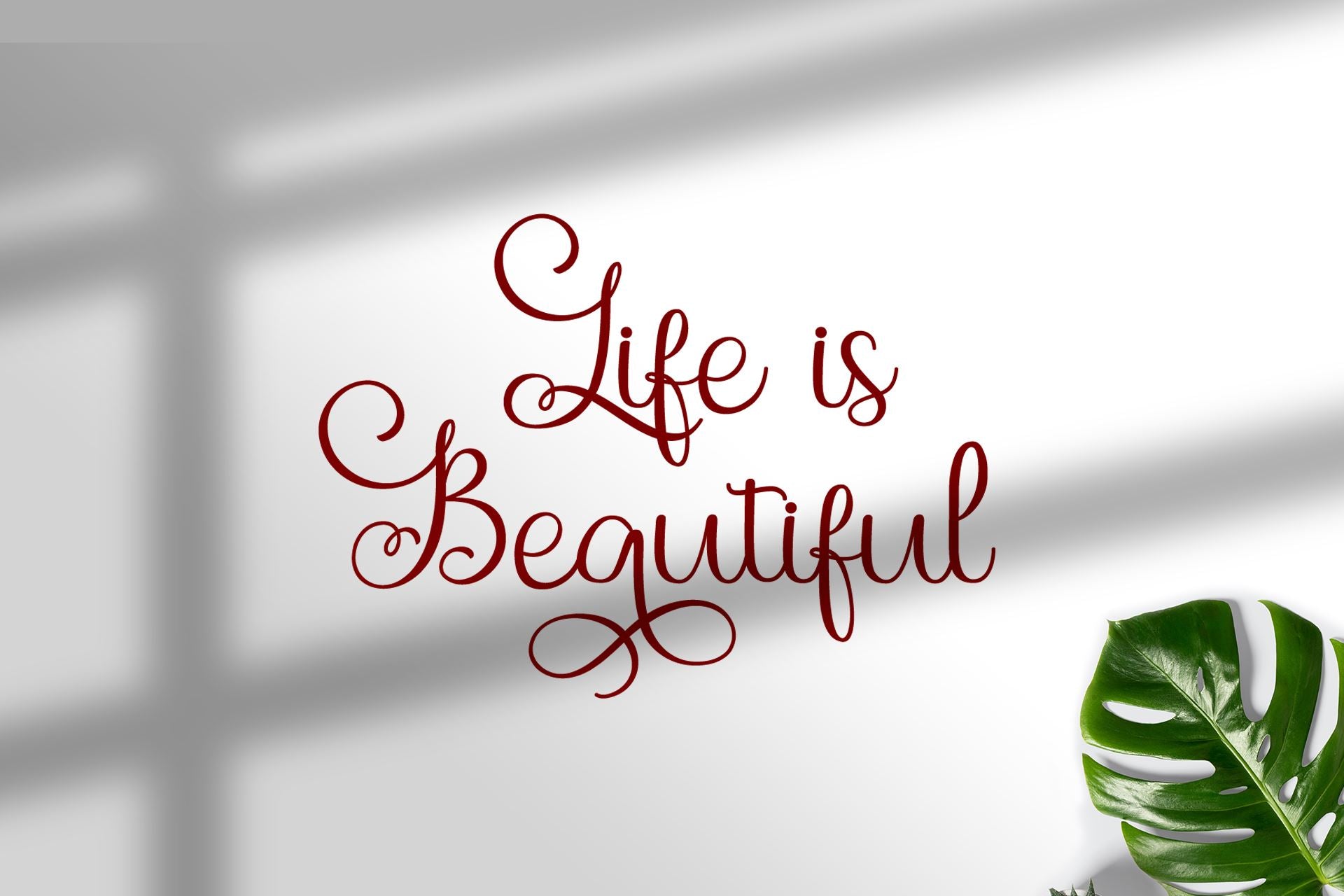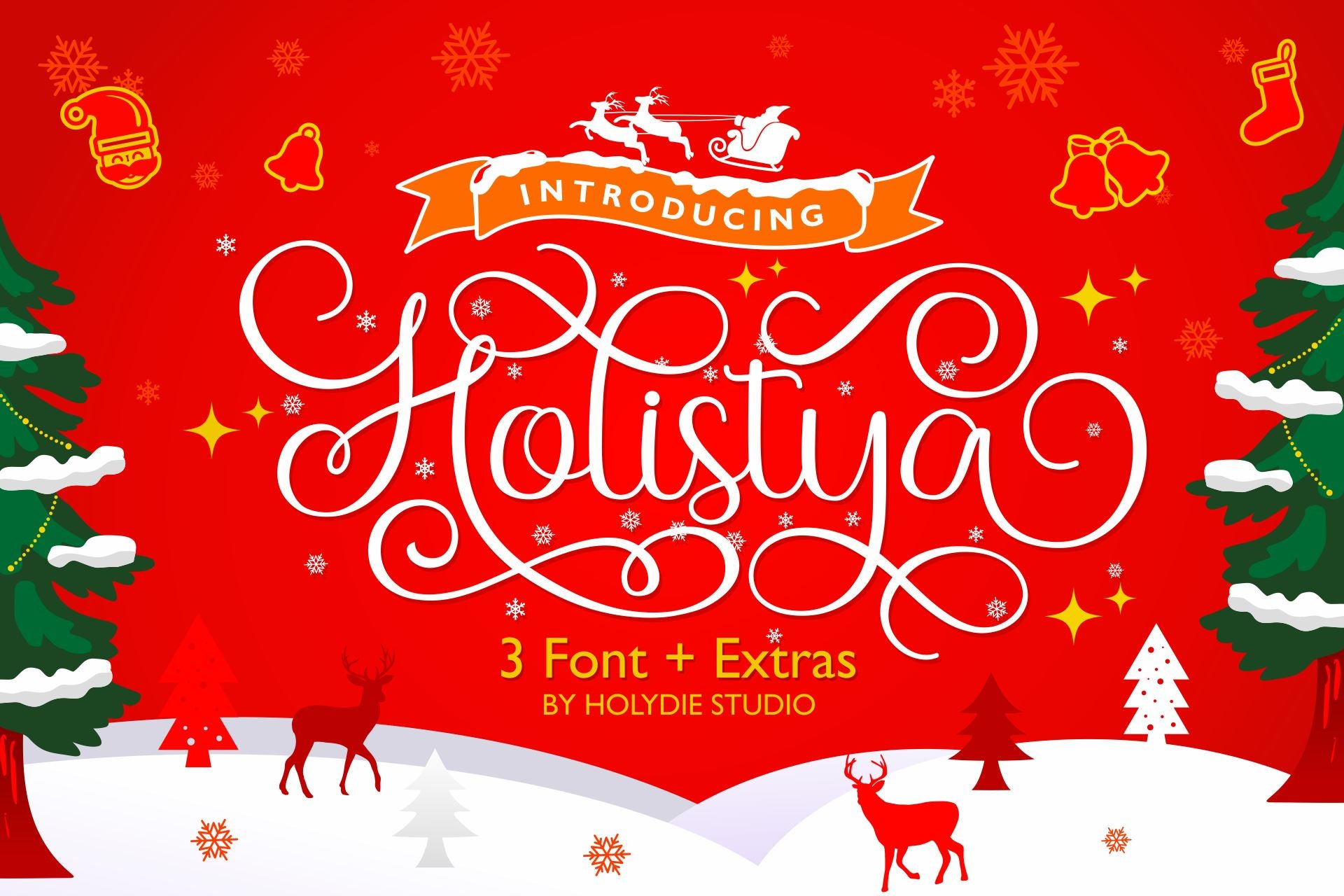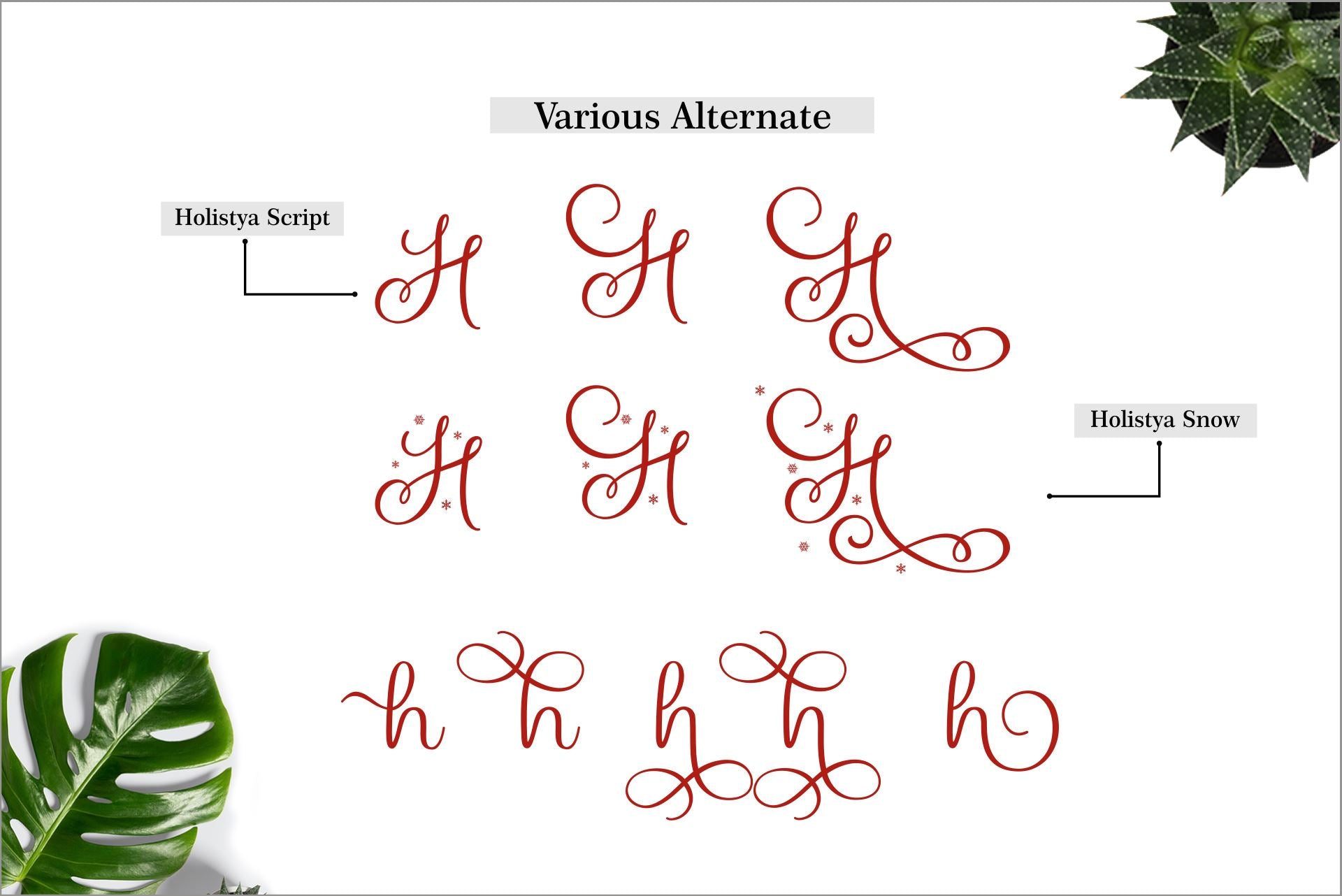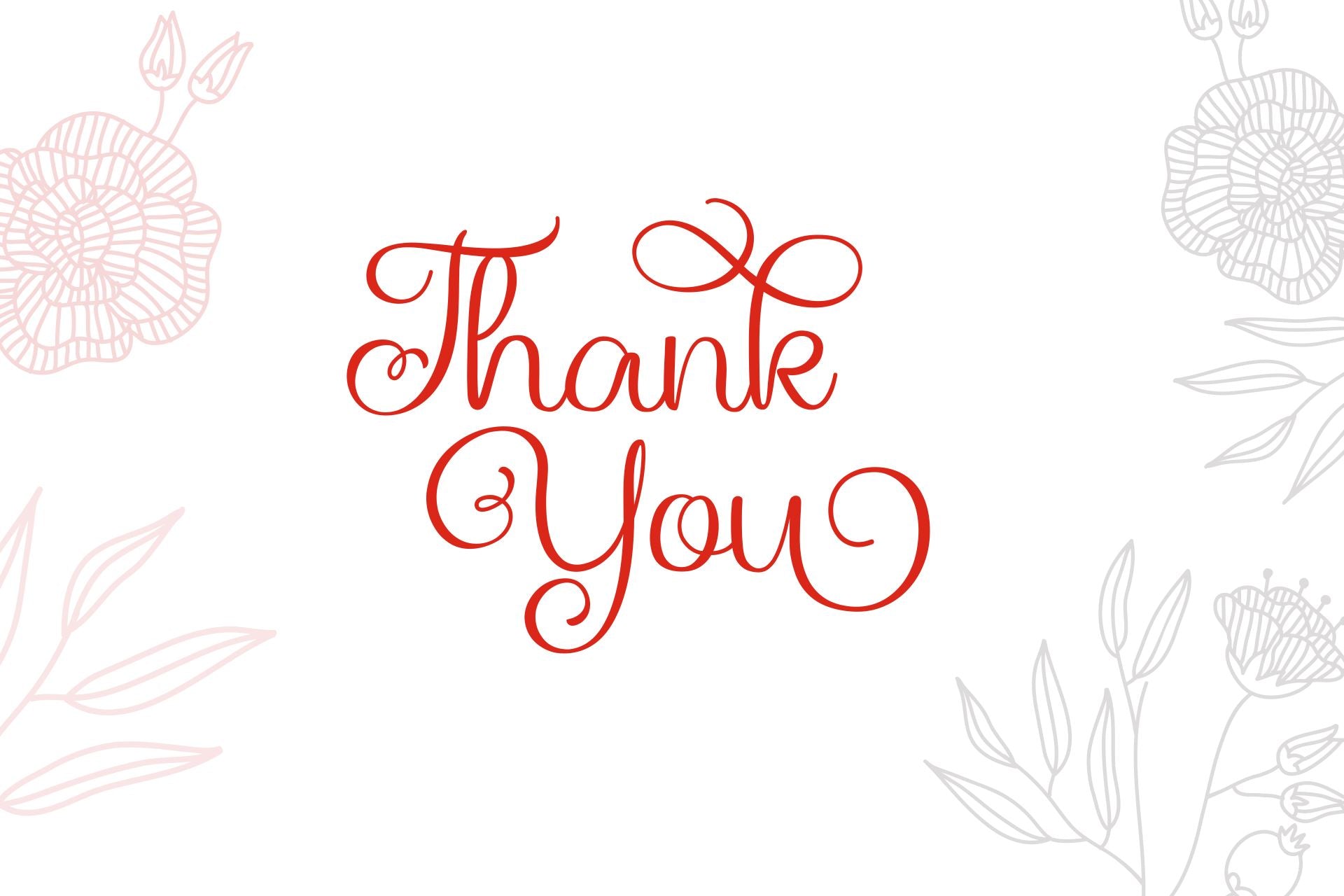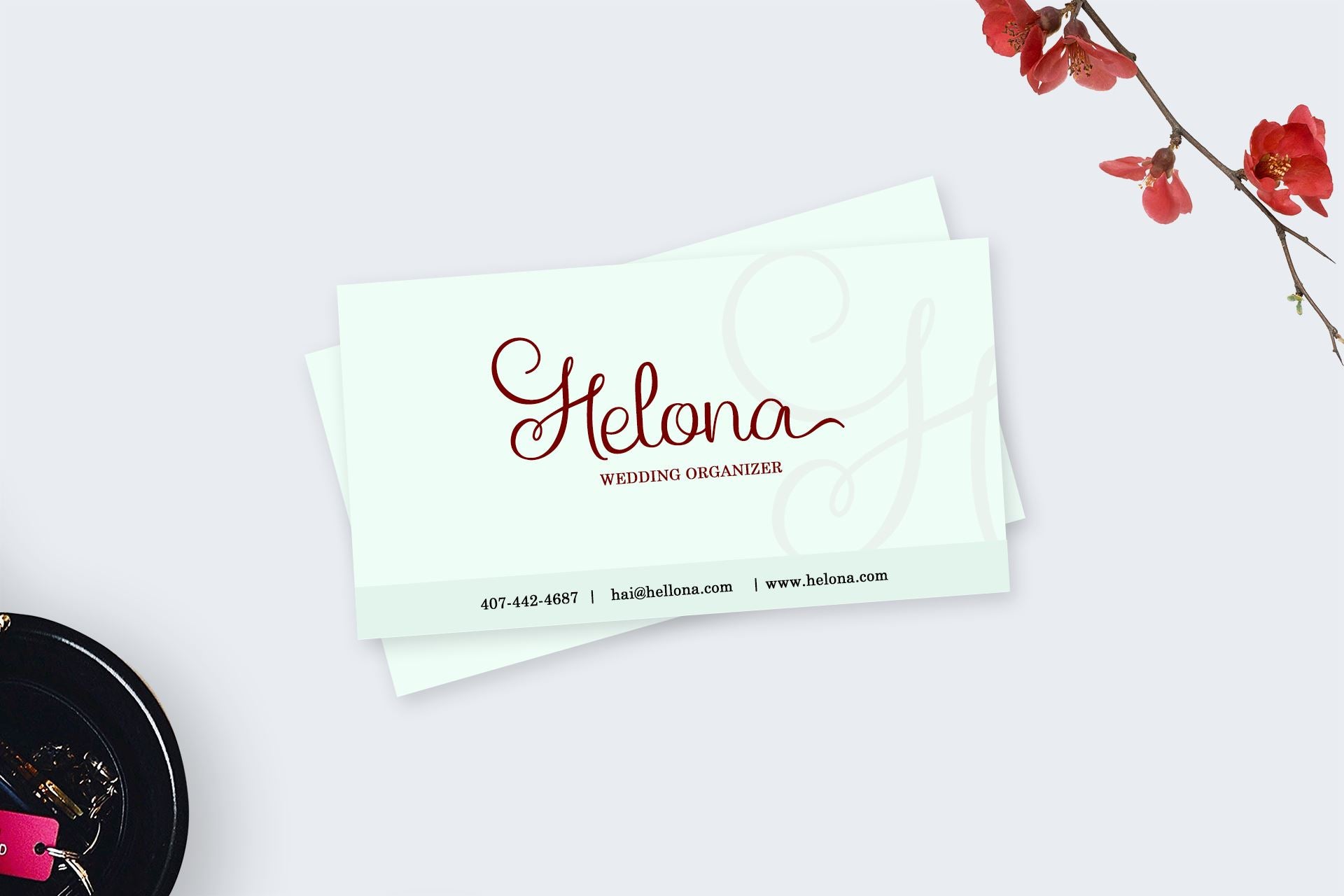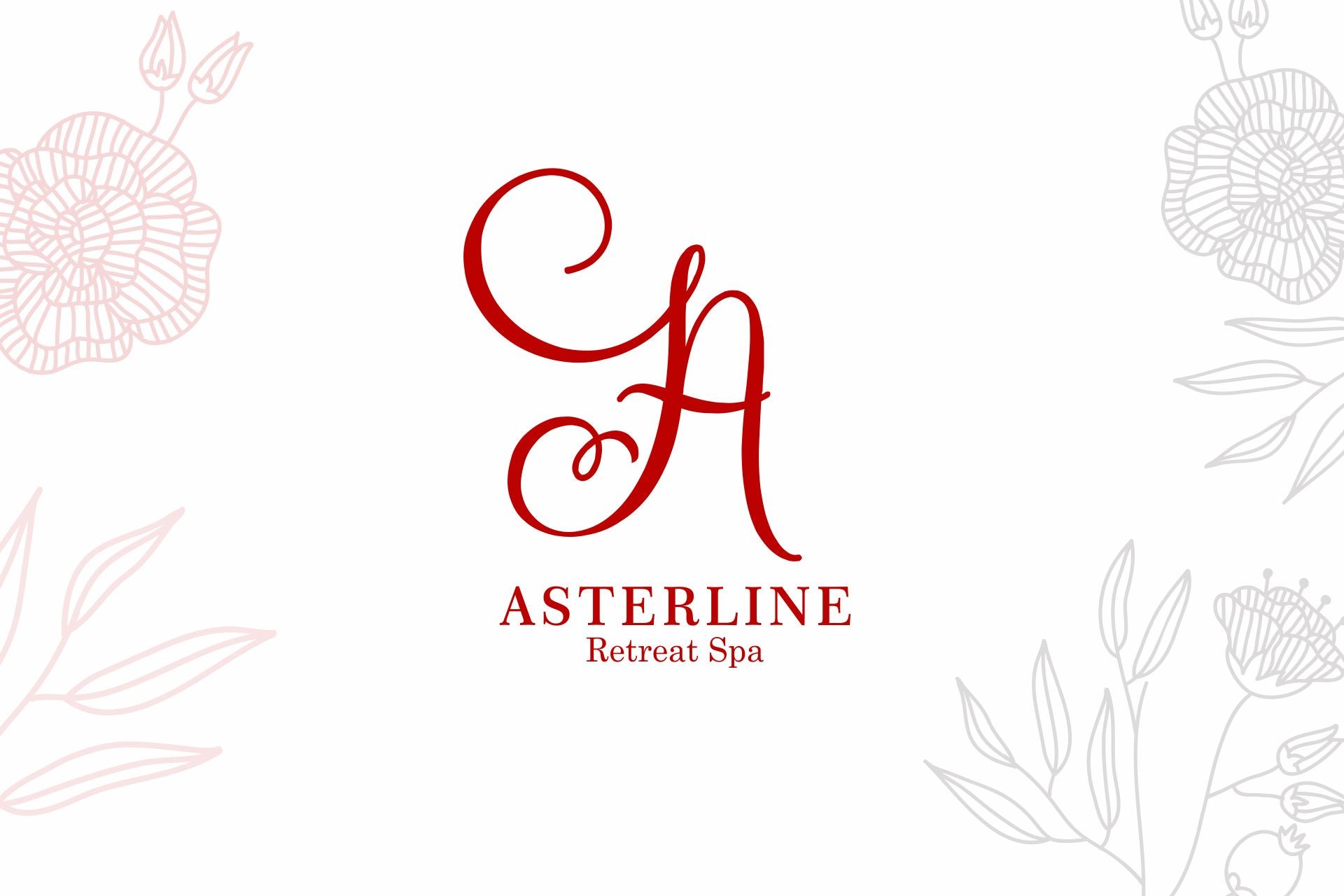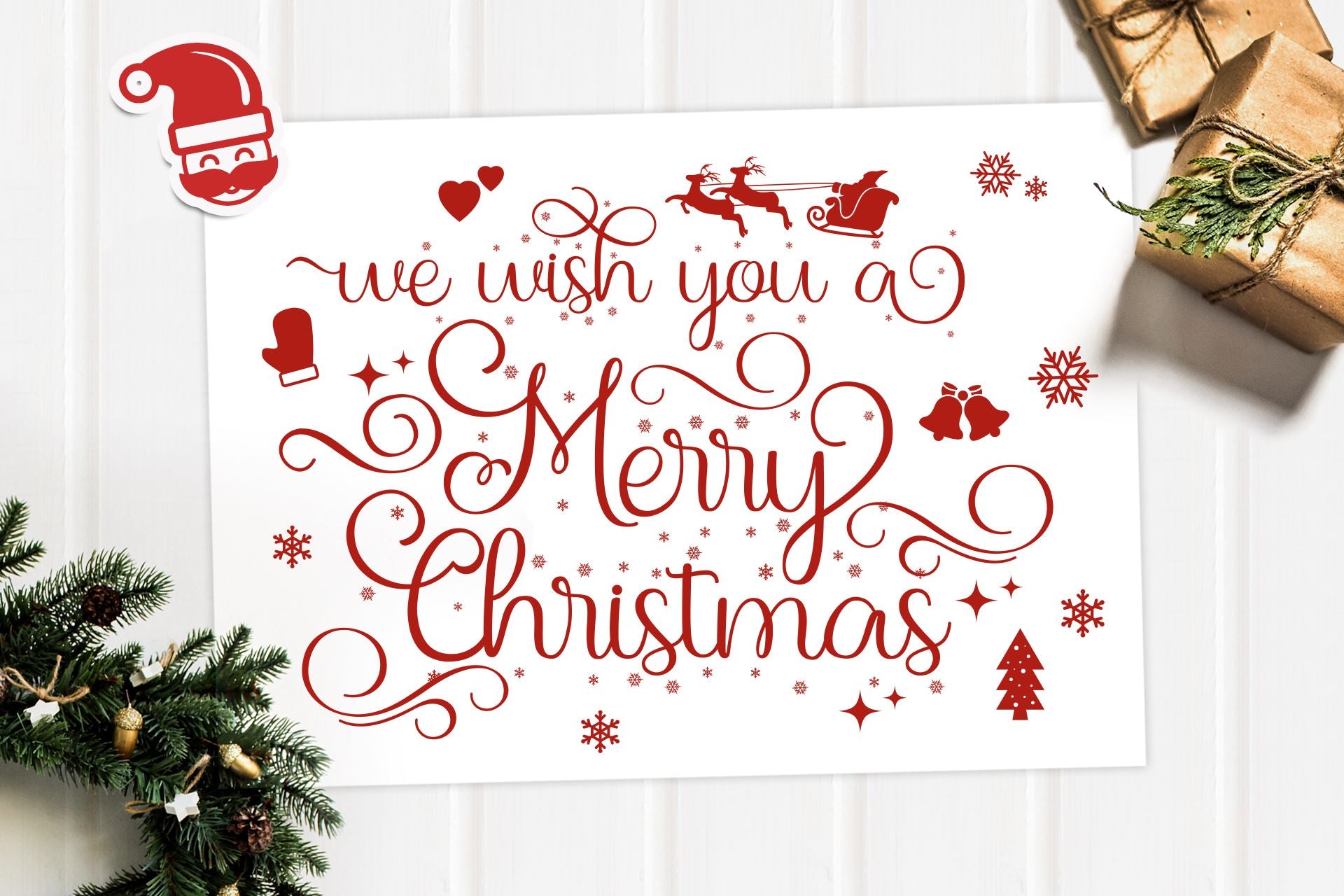
HomeScript FontsHolistya Script Fonts Holistya FacebookXPinterestWhatsApp 1 of 8 ... ... ... ... ... ... ... ... About Holistya is the perfect font for these Holidays! Use it to create stunning greeting cards! DOWNLOAD NOW People also explored Meallina Font Claudya Font Brignola Script Regular Montelin Font Rosie Giselle Font Klara Font Matching Font Jumpscare Font Run out Font 204 0 TagsHolistya Previous articleAdinda ScriptNext articleMilkshake Scriptsweet LEAVE A REPLY Cancel reply Comment: Please enter your comment! Name:* Please enter your name here Email:* You have entered an incorrect email address! Please enter your email address here Website: Save my name, email, and website in this browser for the next time I comment. Personal Use Free Hagia Signal Personal Use Free Read more about this font Child Writing Free Personal Use Free Read more about this font Wordan Personal Use Free Read more about this font Archeology Personal Use Free Read more about this font BLOG Free Fonts Risk: Why Free Fonts Can Be Dangerous for Designers Free Fonts Risk: Why Free Fonts Can Be Dangerous for Designers Using free fonts is a common practice in web and graphic design. However, the... Using Fonts in Digital Marketing: Tips to Strengthen Your Brand Identity Where to Buy American Fonts Online in 2024 How to Install and Use Fonts on Windows, macOS, and Web Projects